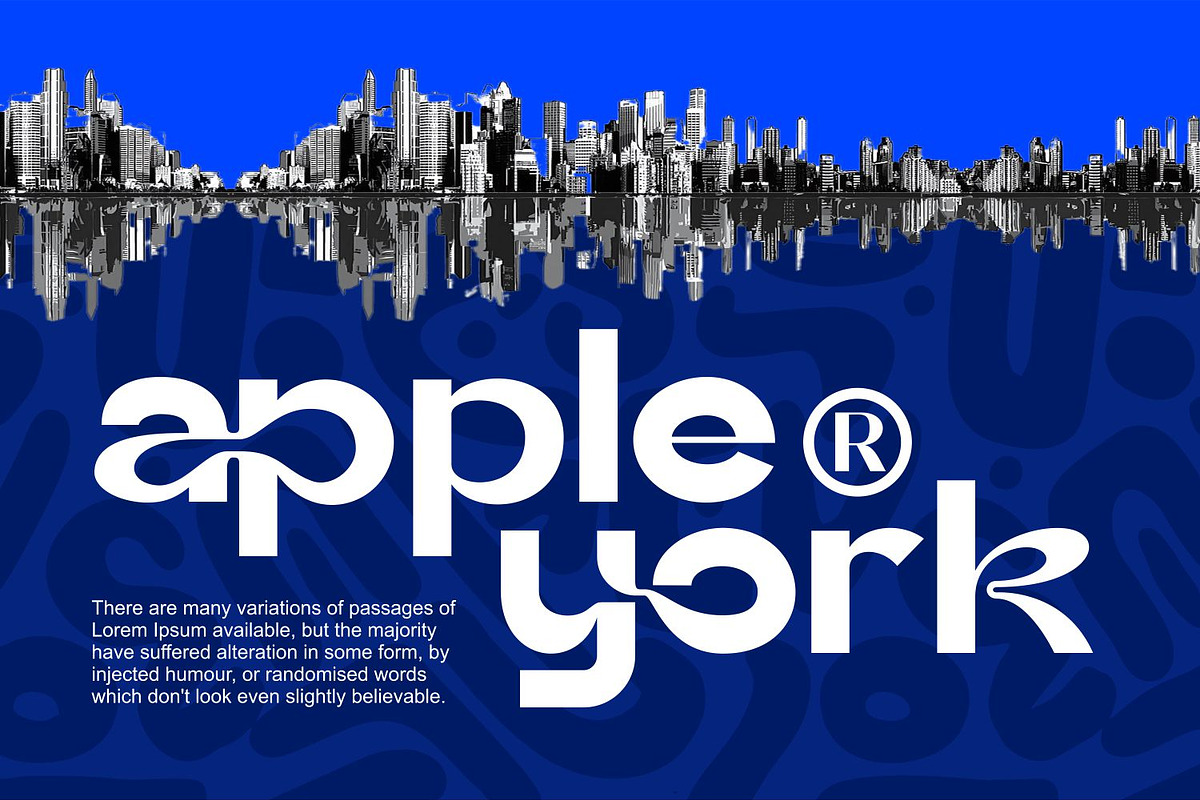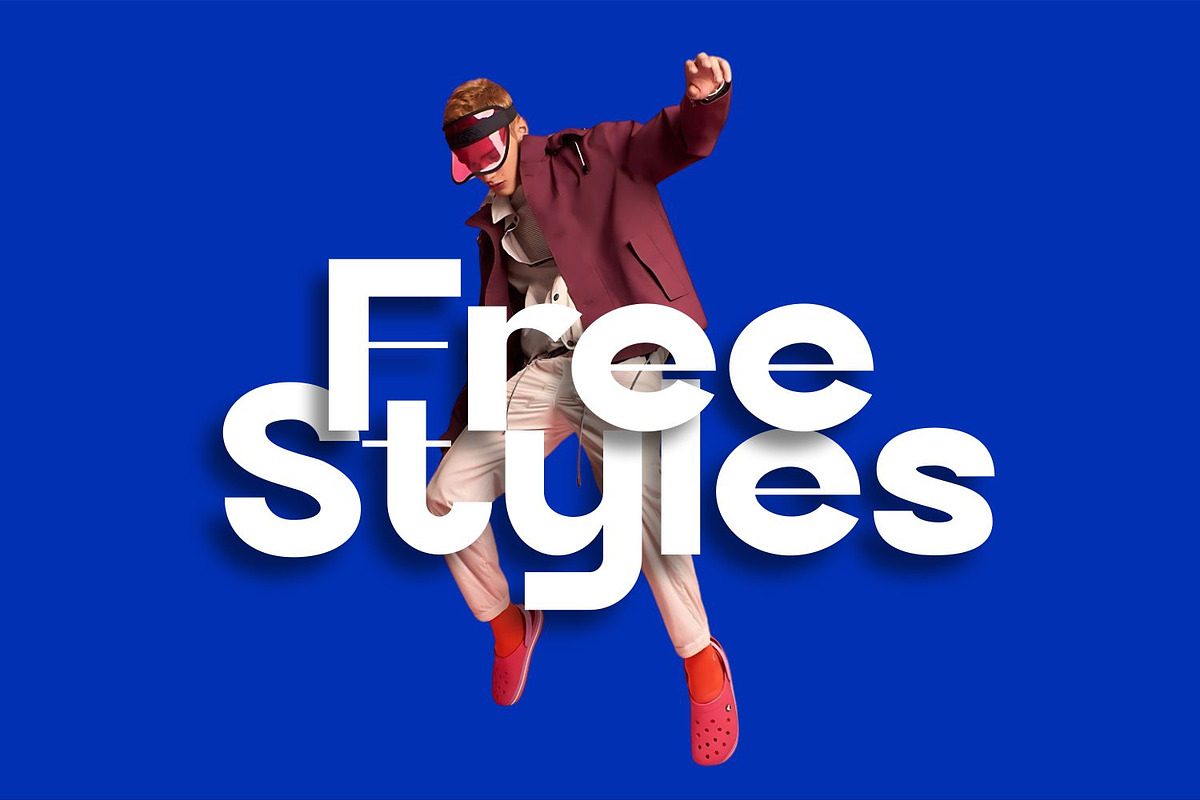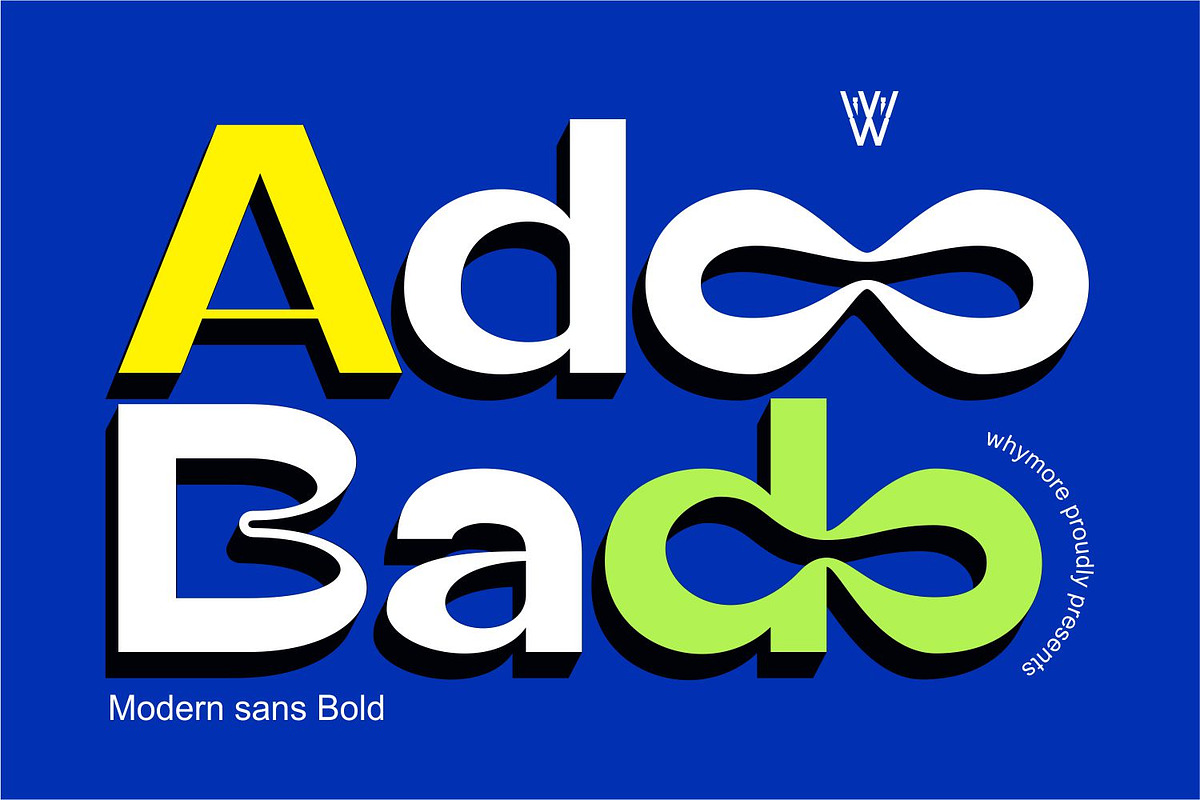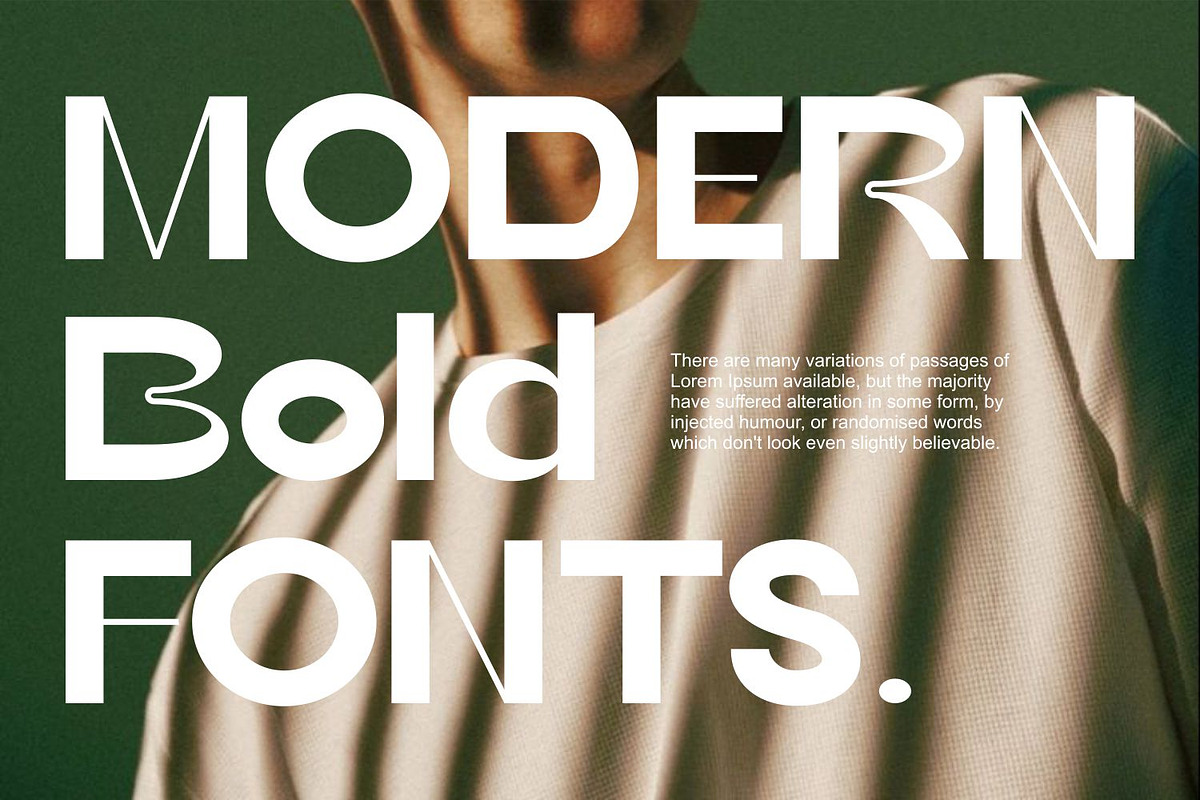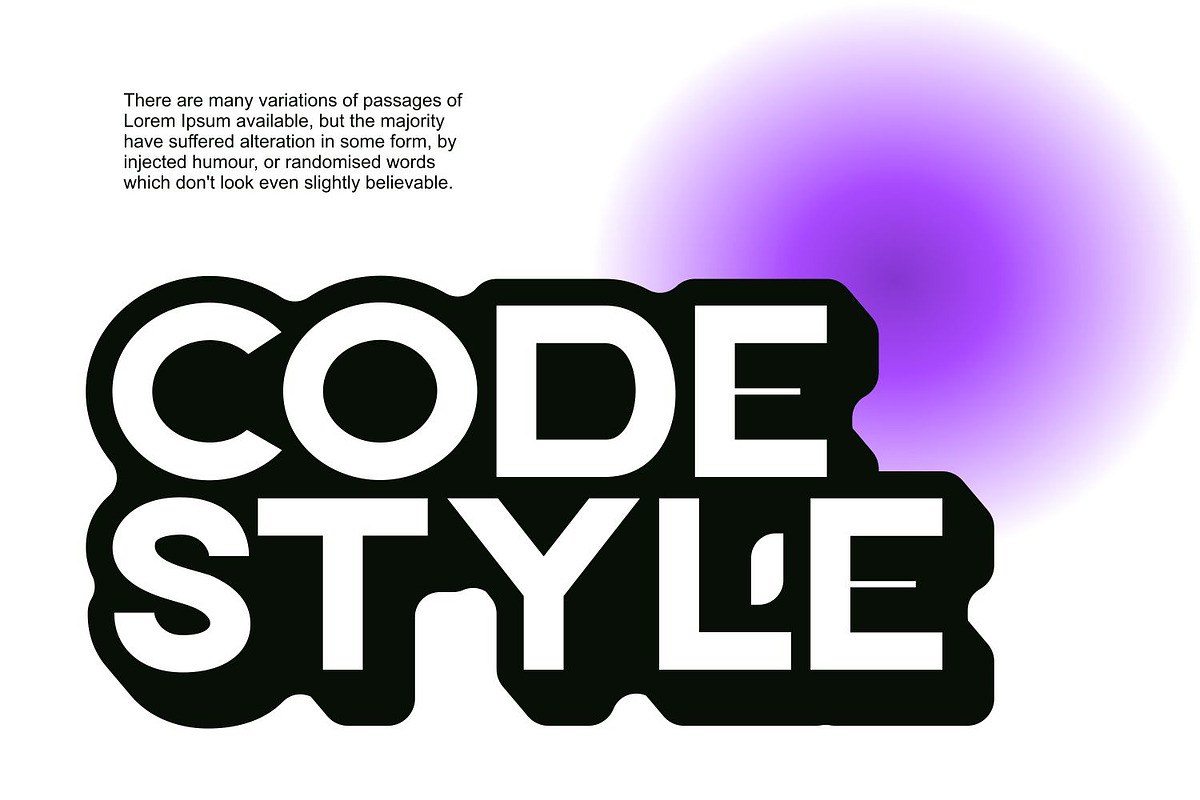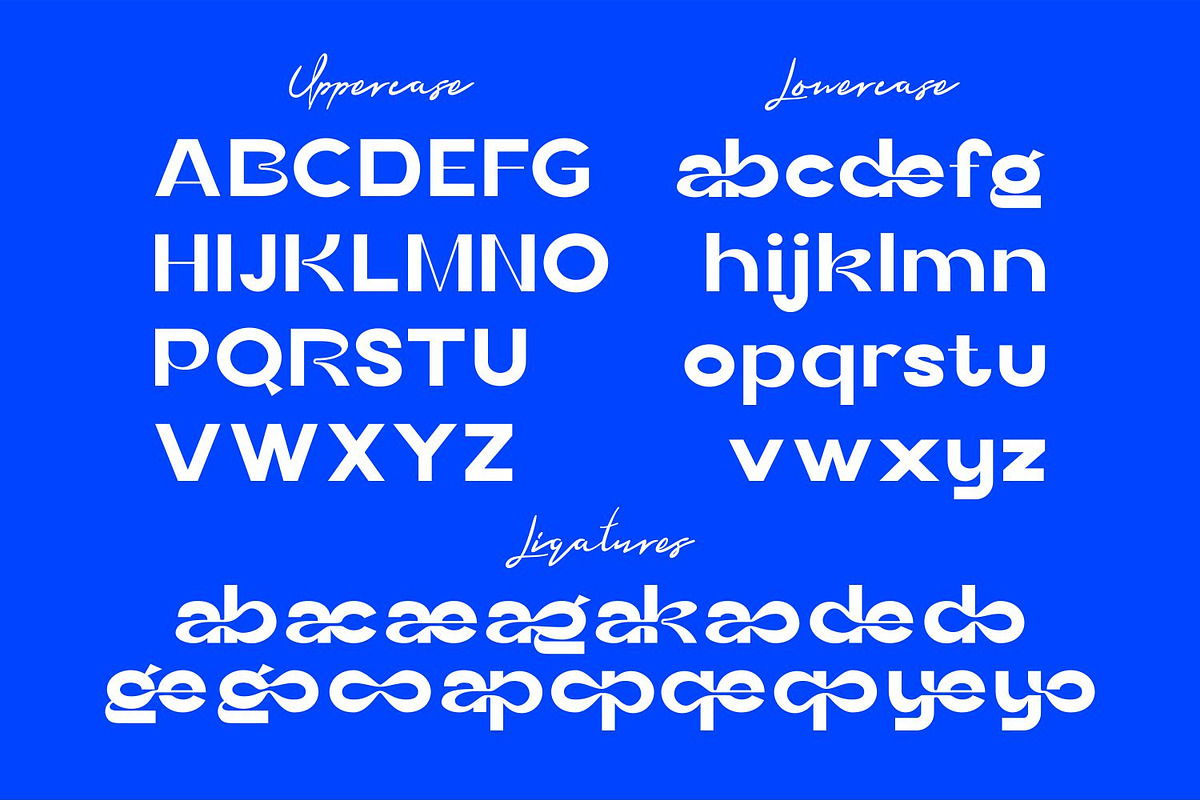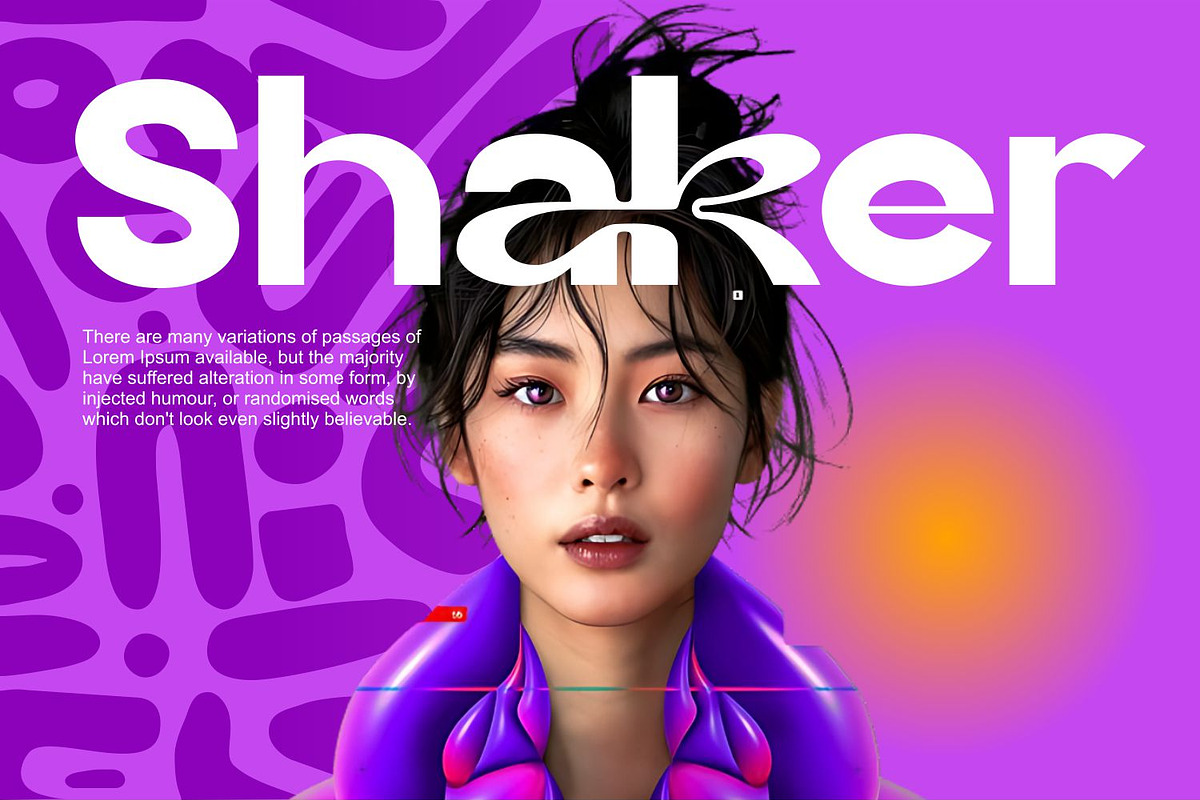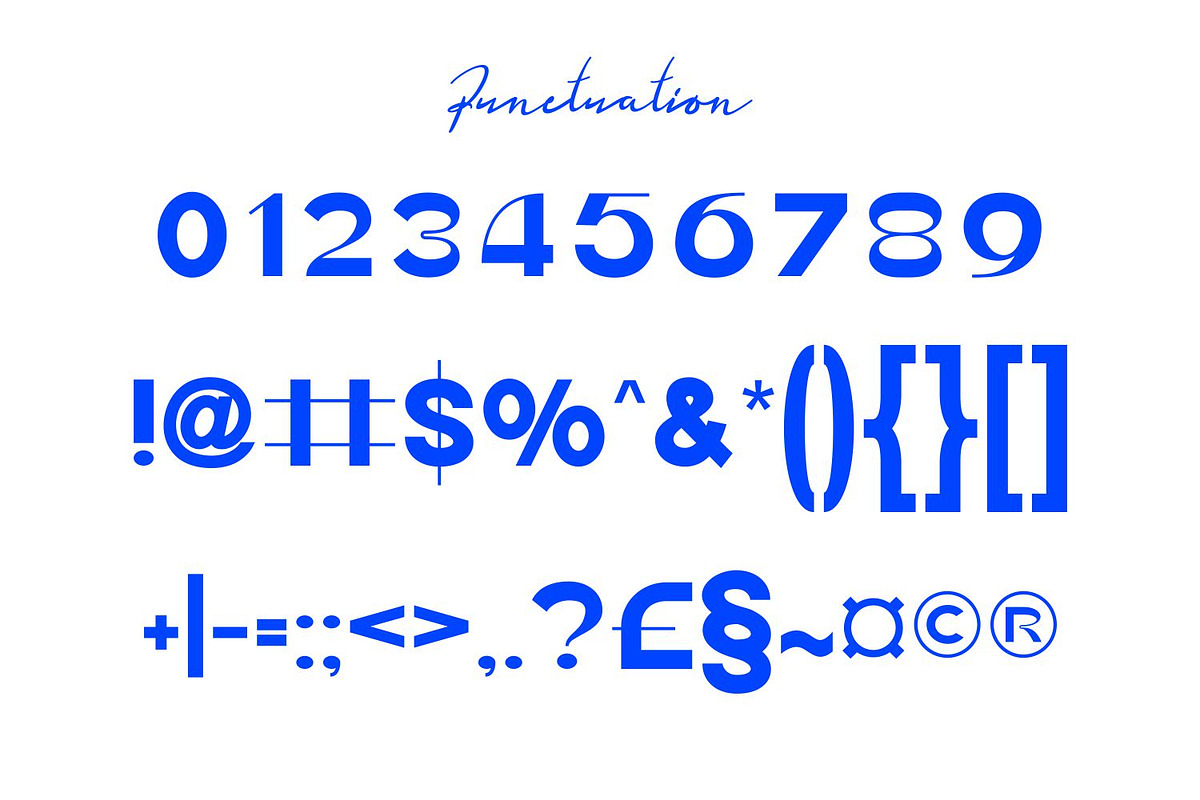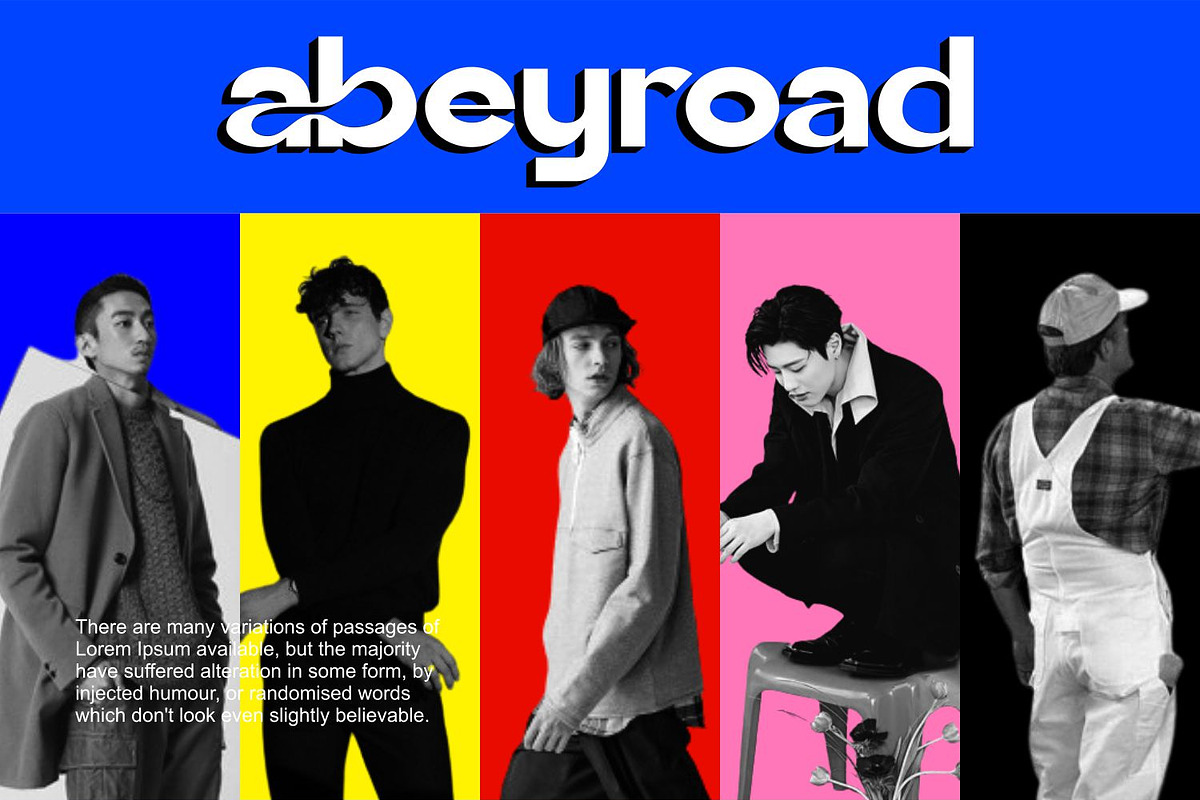
Adoo Bado Sans Bold - Clean Modern
Enhance your design projects with Adoo Bado, a bold and modern sans serif font that combines clean lines with a sleek, contemporary aesthetic. Featuring a full set of uppercase and lowercase characters, this typeface is ideal for creating impactful headers, striking logos, and eye-catching typography.